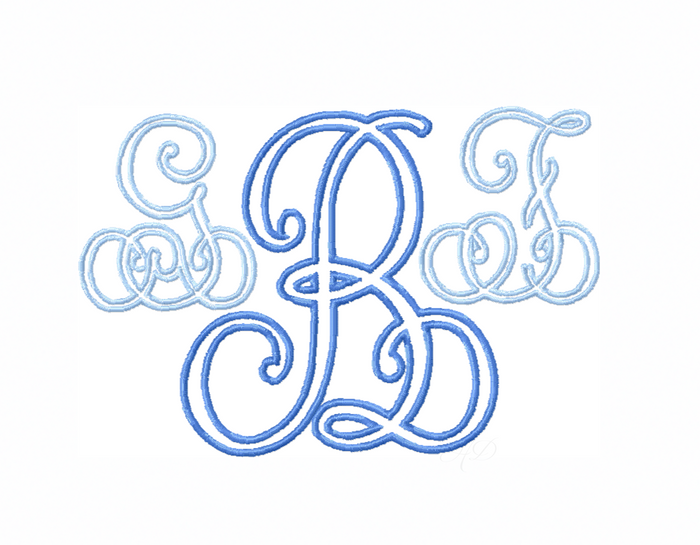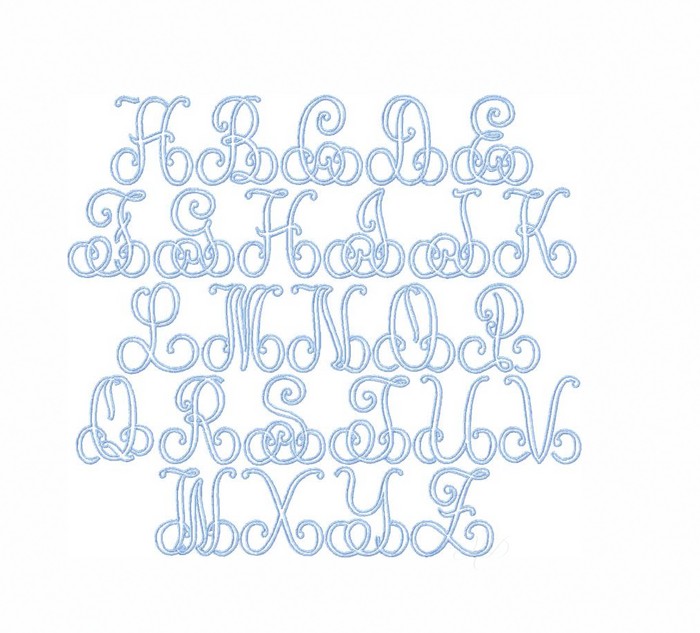
Eliza Outline Embroidery Font
Discover the Eliza Outline Embroidery Font, your go-to solution for crafting stunning monograms! This font features 6 sizes in satin stitching, ranging from 1" to 3.5", designed specifically for your embroidery machine needs. Perfectly complements our exclusive Ginger Jar embroidery designs for added creativity!